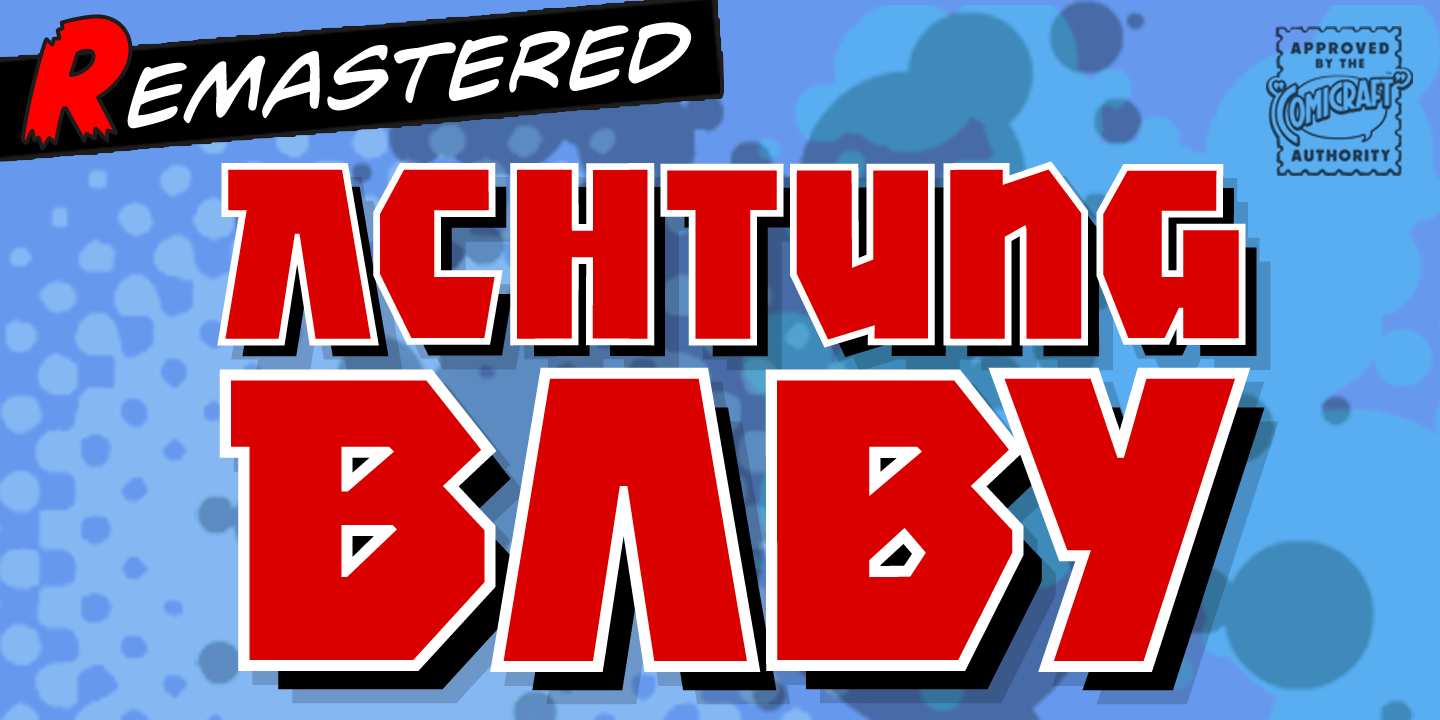
Achtung Baby Font is ideal for rock band merchandise, alternative music posters, rebellious branding campaigns, punk rock graphics, underground music venues, concert promotional materials, edgy fashion designs, youth culture projects, street art installations, and bold applications that capture the raw energy and rebellious spirit of contemporary rock culture.
What makes Achtung Baby Font truly exciting is its perfect fusion of German industrial precision with rock and roll rebellion that creates an unmistakable attitude of confident defiance and musical authenticity. This exceptional typeface embodies the spirit of groundbreaking alternative music with its bold letterforms and unapologetic character that convey both artistic integrity and rebellious energy. The font's rock-solid personality and countercultural authenticity make it perfect for brands seeking to communicate creative rebellion, musical passion, and the transformative power of authentic artistic expression that challenges conventions.
The Achtung Baby Font family includes multiple weights and styles: Regular, Bold, Condensed, Distressed, and Stencil variations designed for maximum rock impact. Each family member maintains the distinctive rebellious character while offering flexibility for diverse music applications and alternative branding systems. The comprehensive character set supports rock typography needs and underground design elements, making it suitable for international alternative music communications.
When you choose Achtung Baby Font Free Download, you're selecting a typography revolution that delivers authentic rock credibility and rebellious artistic spirit. This powerful typeface excels in applications where musical authenticity and creative rebellion are paramount, delivering exceptional visual punch while maintaining underground credibility. Whether you're designing band materials, music venues, alternative brands, or youth culture campaigns, this font provides the rock authenticity and rebellious energy that resonates with audiences who appreciate genuine artistic expression, musical innovation, and the uncompromising spirit of alternative culture.